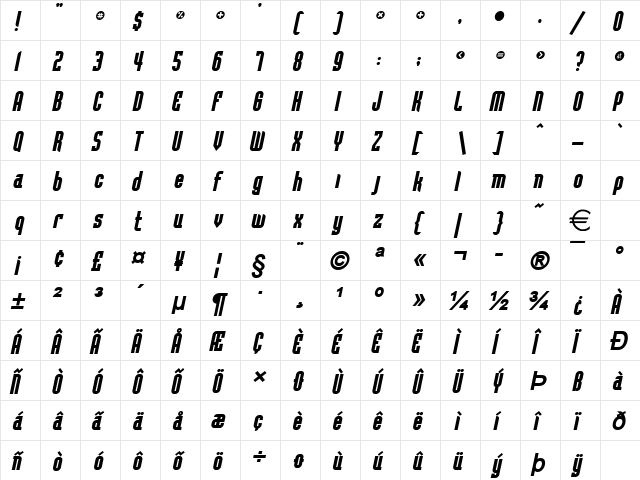
Flintstone BoldItalic
Design Context for Flintstone Typeface
Flintstone offers clean, dependable letterforms without strong stylistic allegiance, making it a practical choice for designers who need flexibility. The slanted form adds forward momentum and visual energy. The heavy weight commands attention and anchors typographic hierarchies.
Pro Tip: Use Flintstone for emphasis, pull quotes, and subheadings where its slanted energy can add rhythm to the layout.